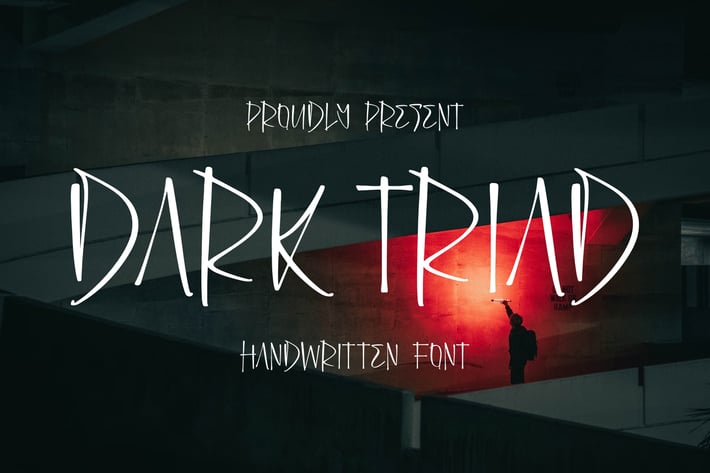
Dark Triad Handwritten Font
Dark Triad Handwritten Font brings a bold, raw, and expressive energy to your designs. With its tall, edgy strokes and hand-crafted aesthetic, this font is perfect for projects that demand intensity and a modern grunge feel. Designed for both digital and print, Dark Triad combines artistic flair with professional versatility.
+ Handwritten style with strong personality
+ Uppercase & lowercase support
+ Regular & Italic styles available
Bring bold strokes and fierce personality into your design with Dark Triad — where handwriting meets raw expression.